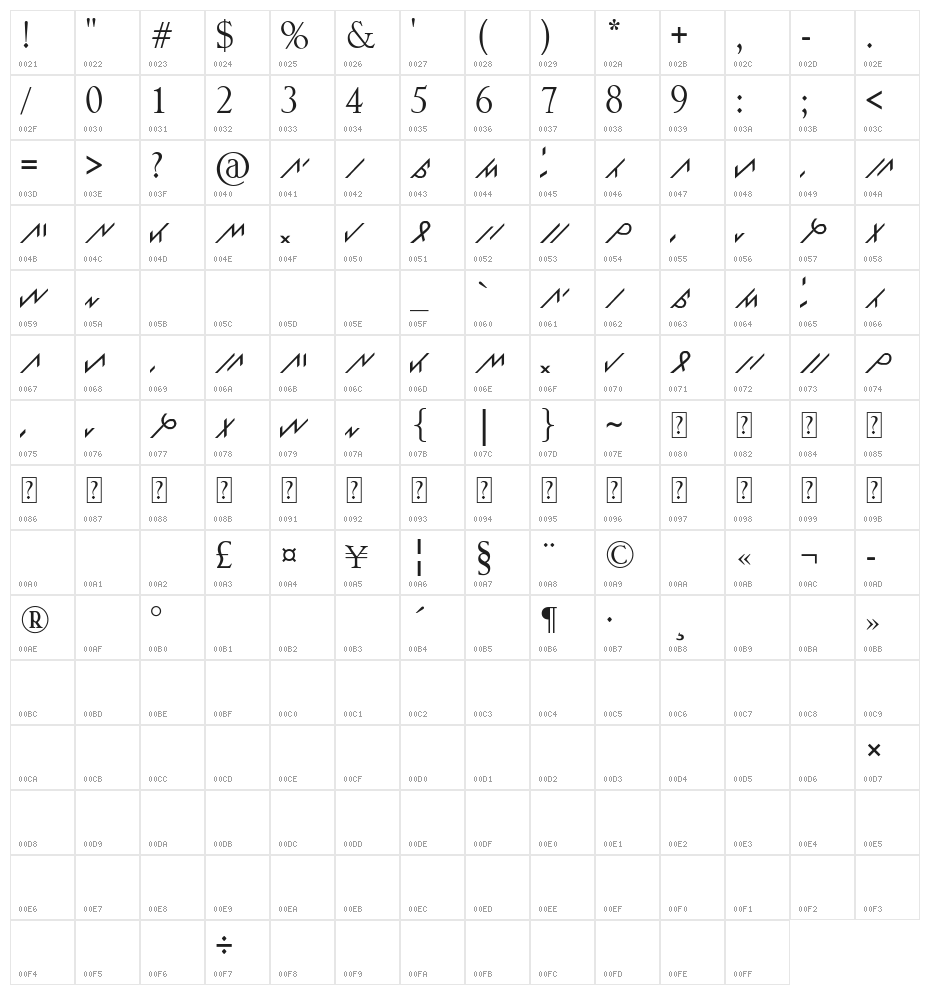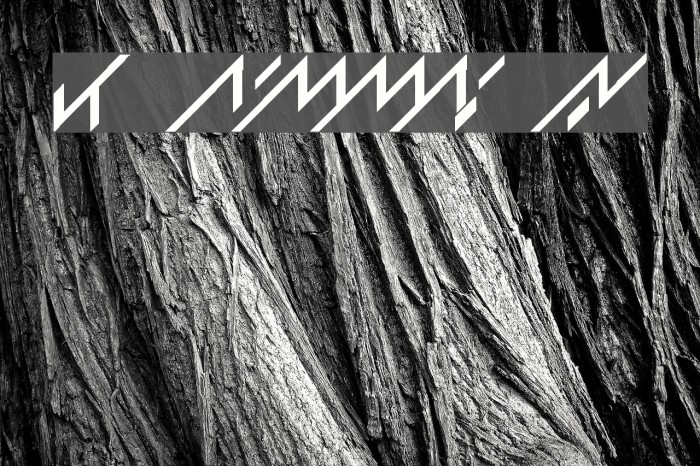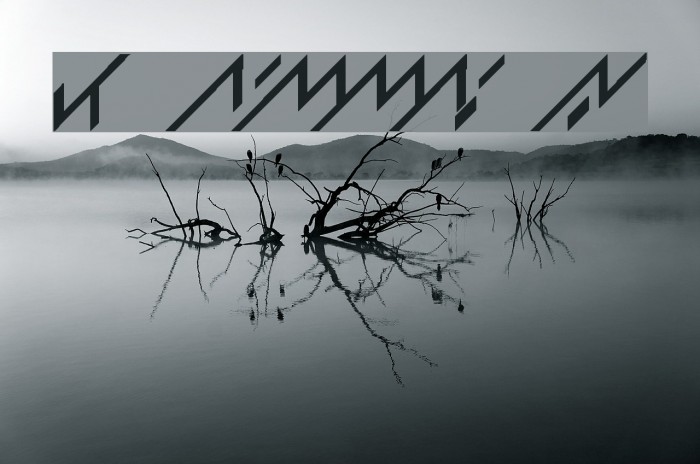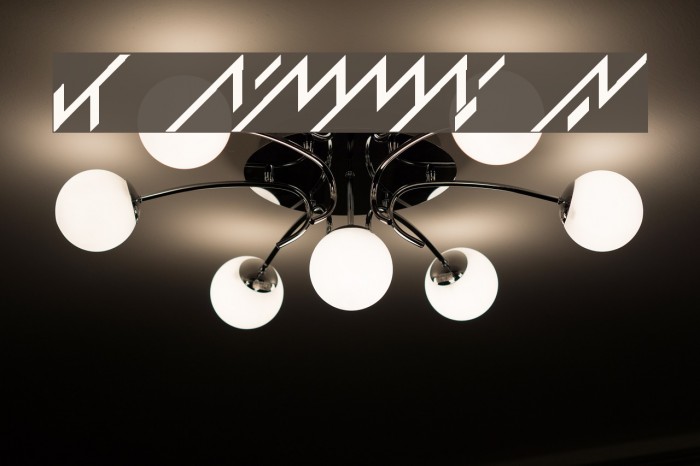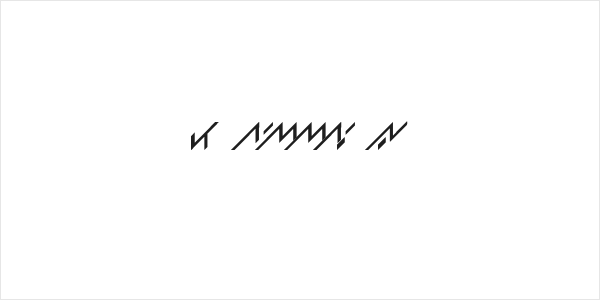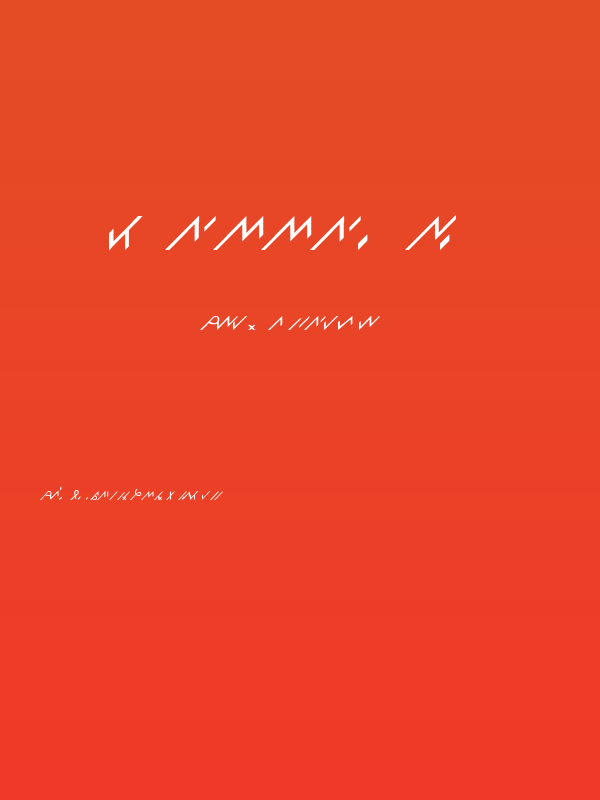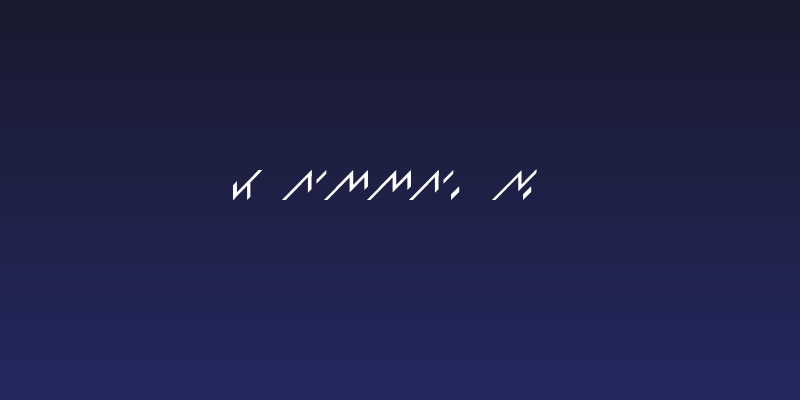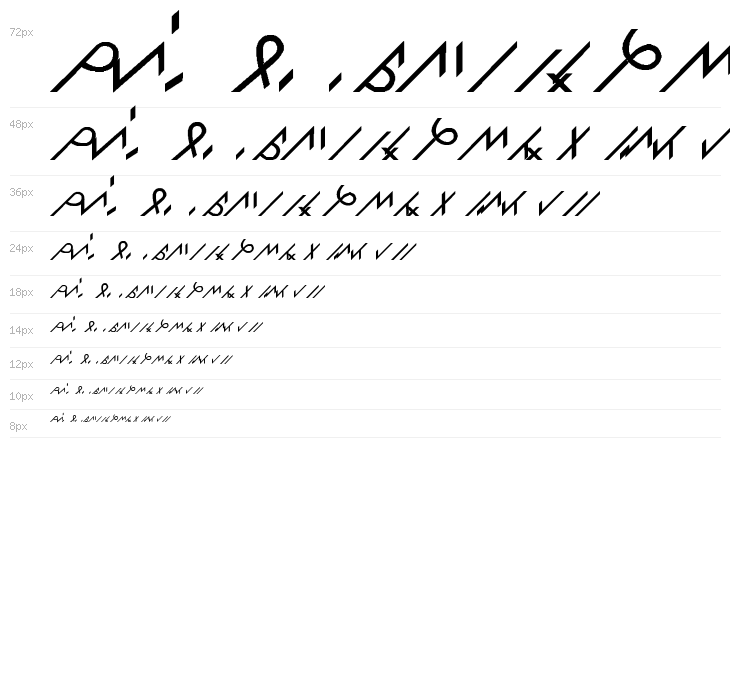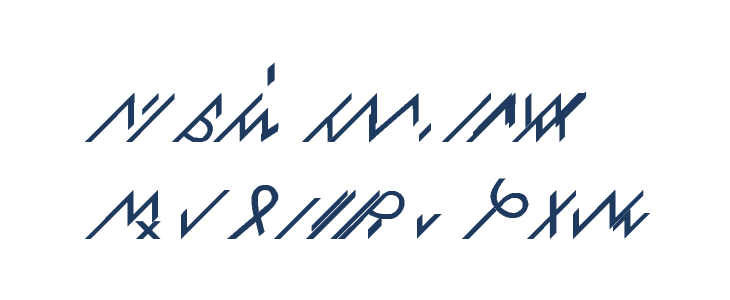
mannaulu Font
mannaulu Description
This font features a dynamic and energetic script style with a strong slant, giving it a sense of motion and fluidity. The uppercase letters are bold and angular, while the lowercase letters maintain a consistent slant, enhancing the overall flow. The numerals are clear and distinct, complementing the alphabet with their elegant curves. Special characters are well-integrated, maintaining the font's cohesive appearance. This font's unique style makes it suitable for projects that require a touch of sophistication and flair.
Use CaseLogos, Headlines, Invitations
Proposed ProjectsIdeal for branding, invitations, and editorial design where a touch of elegance is desired.